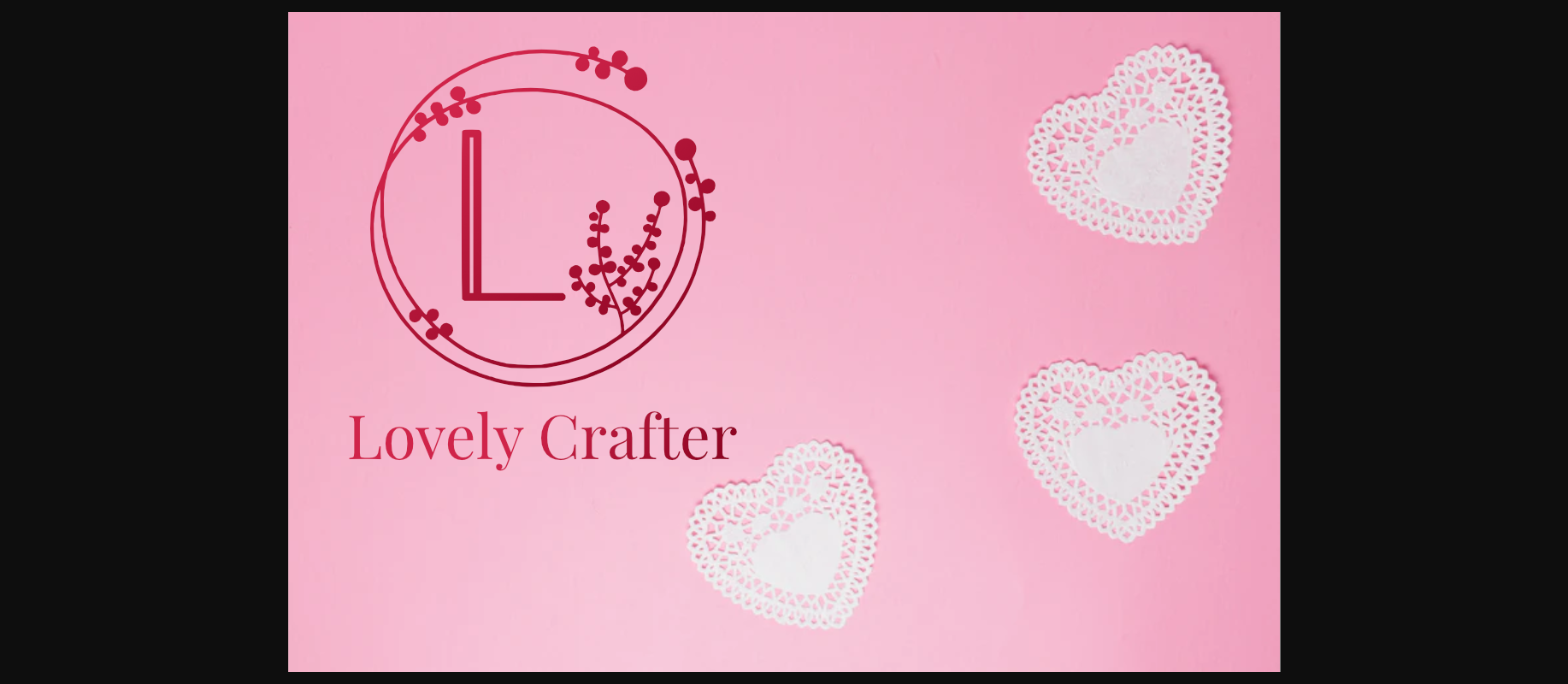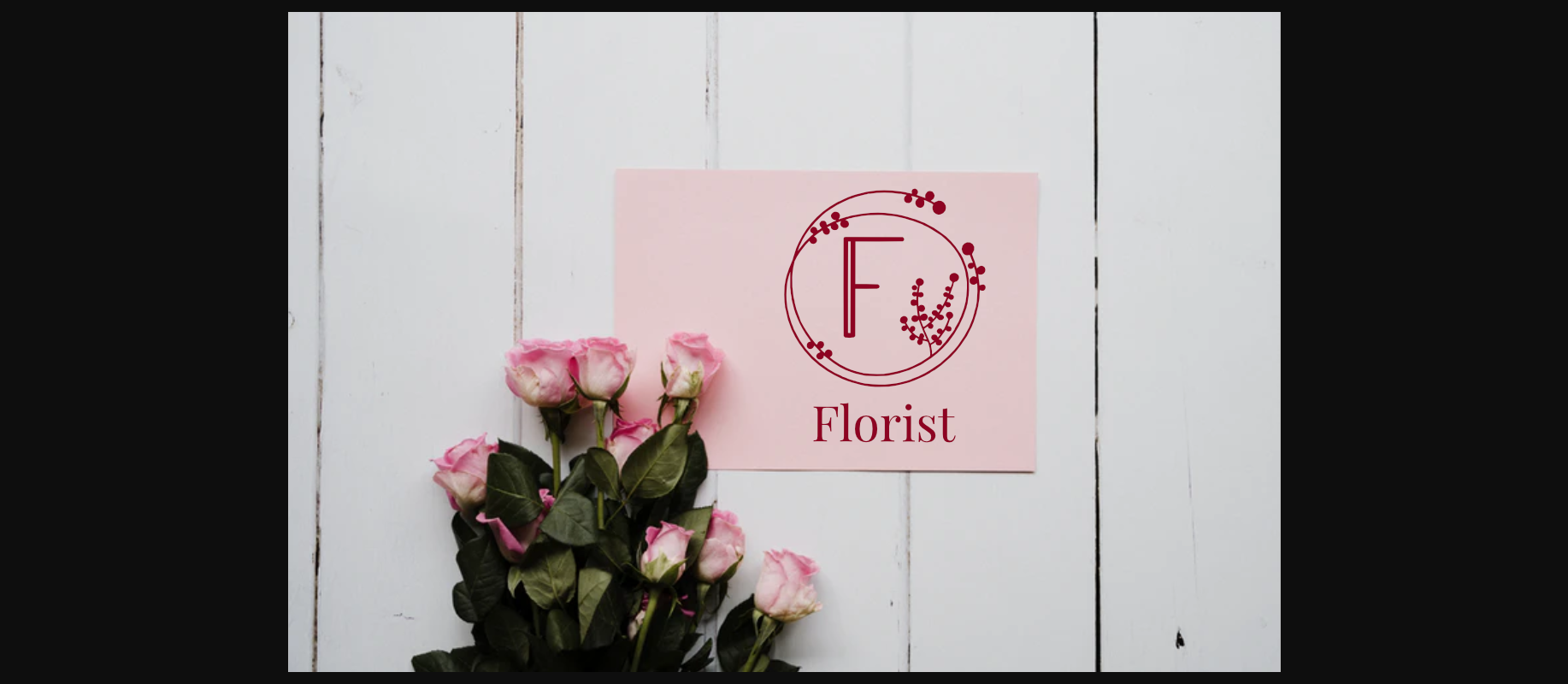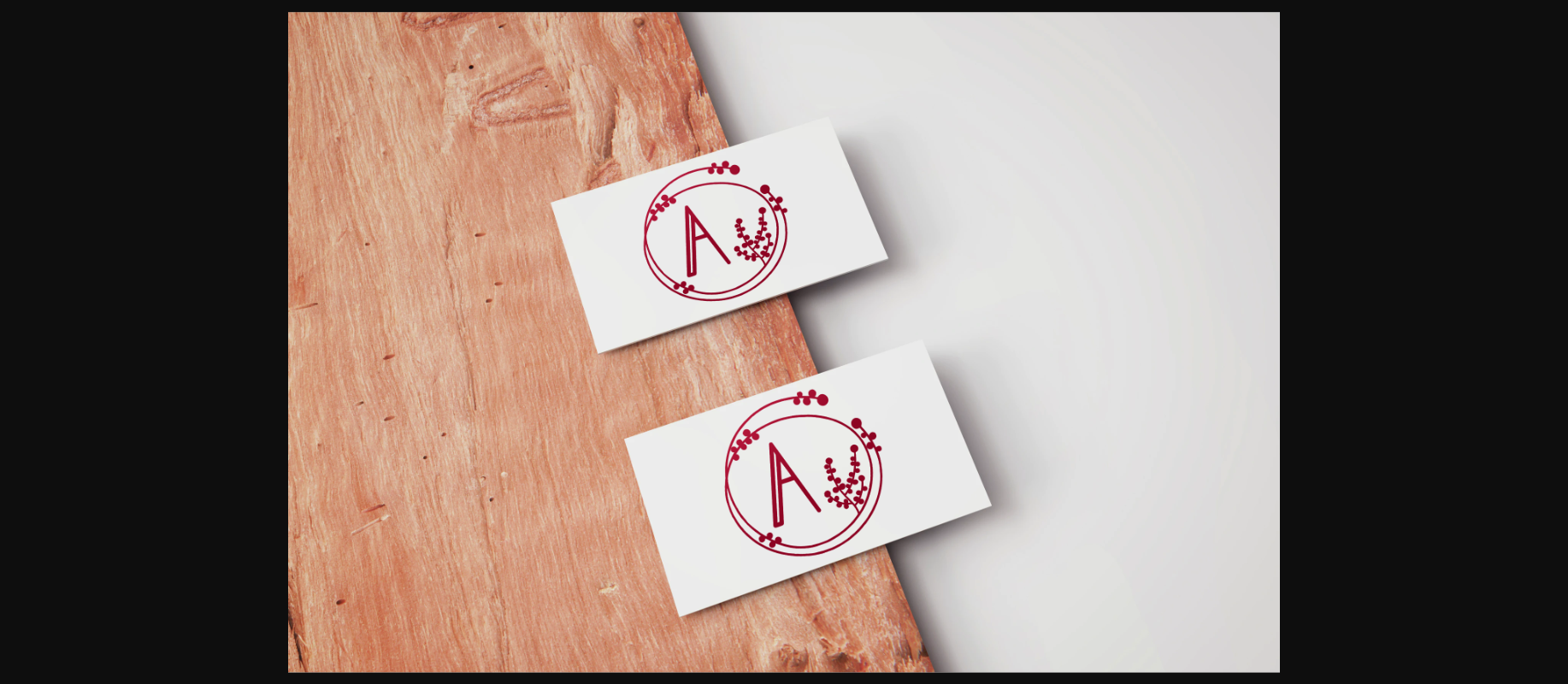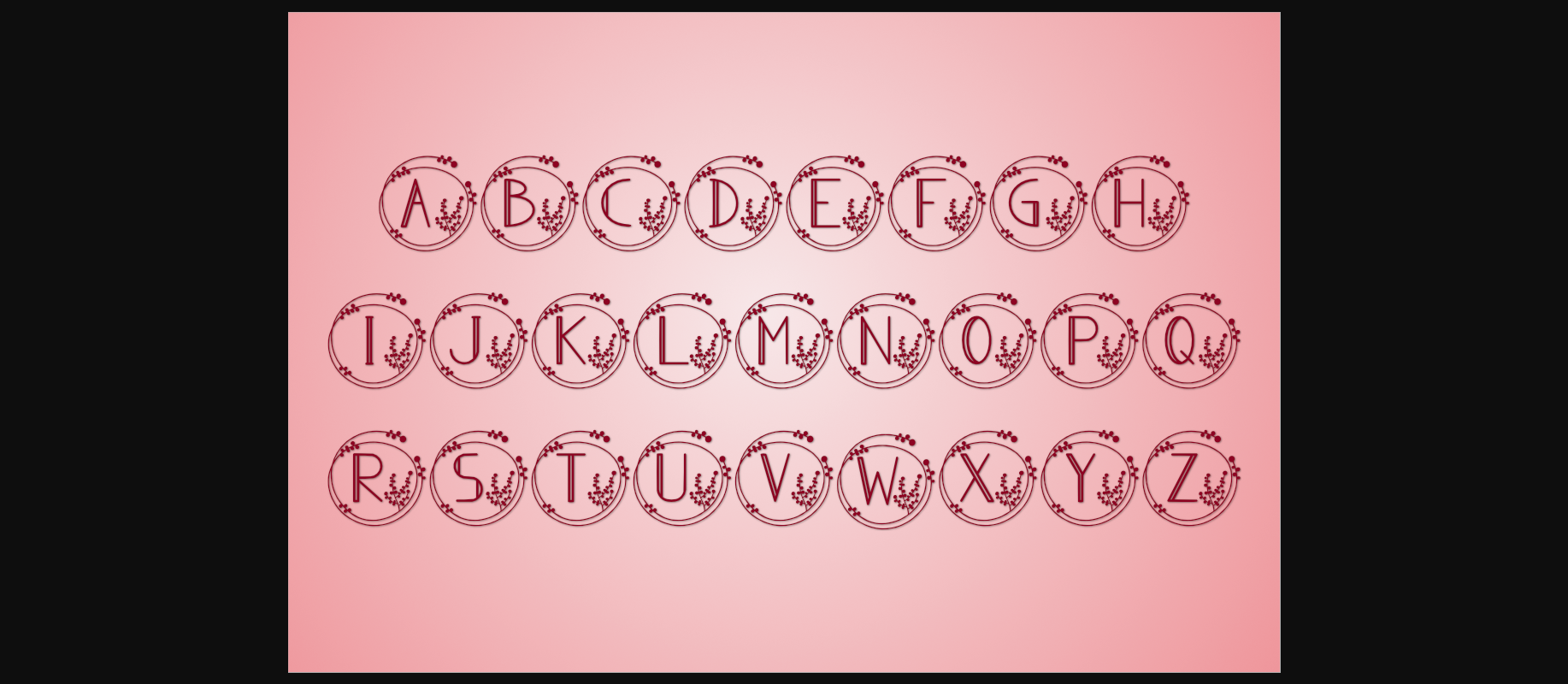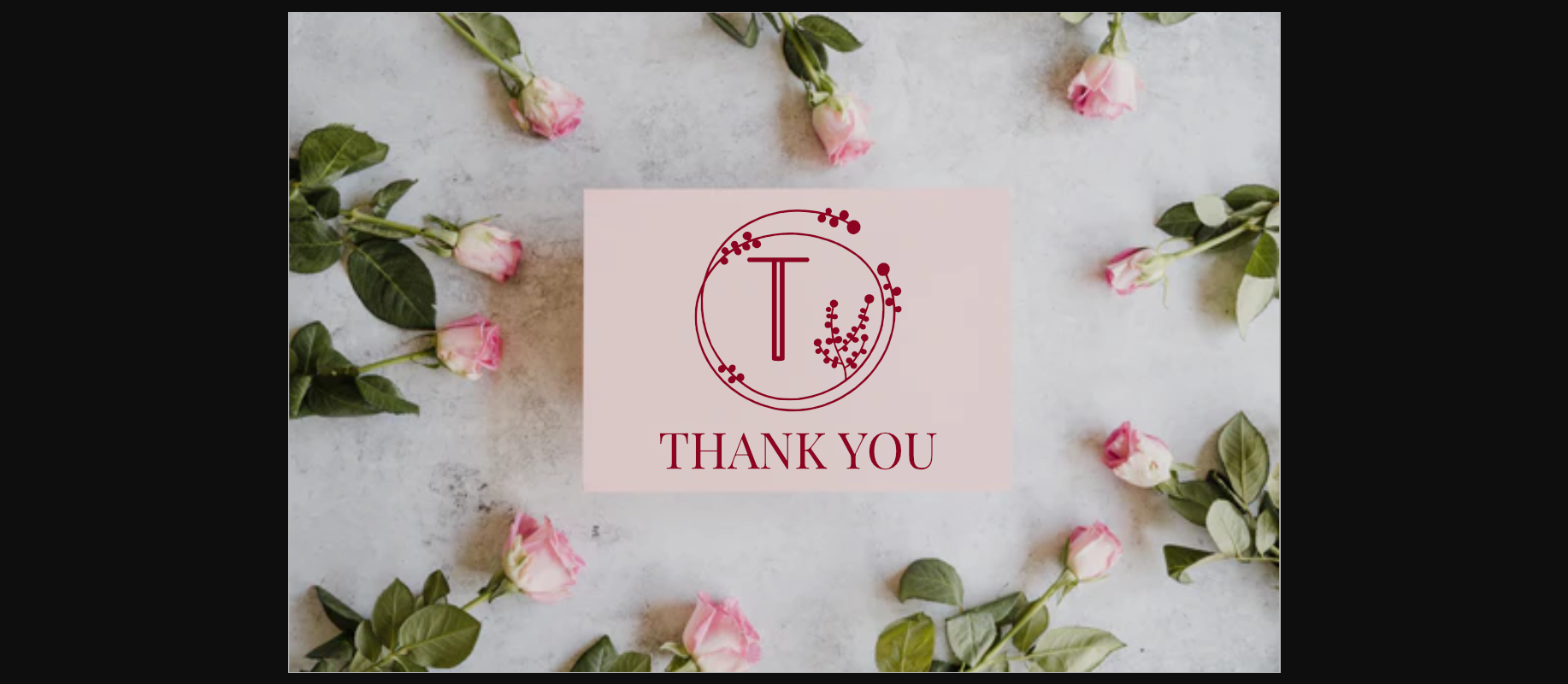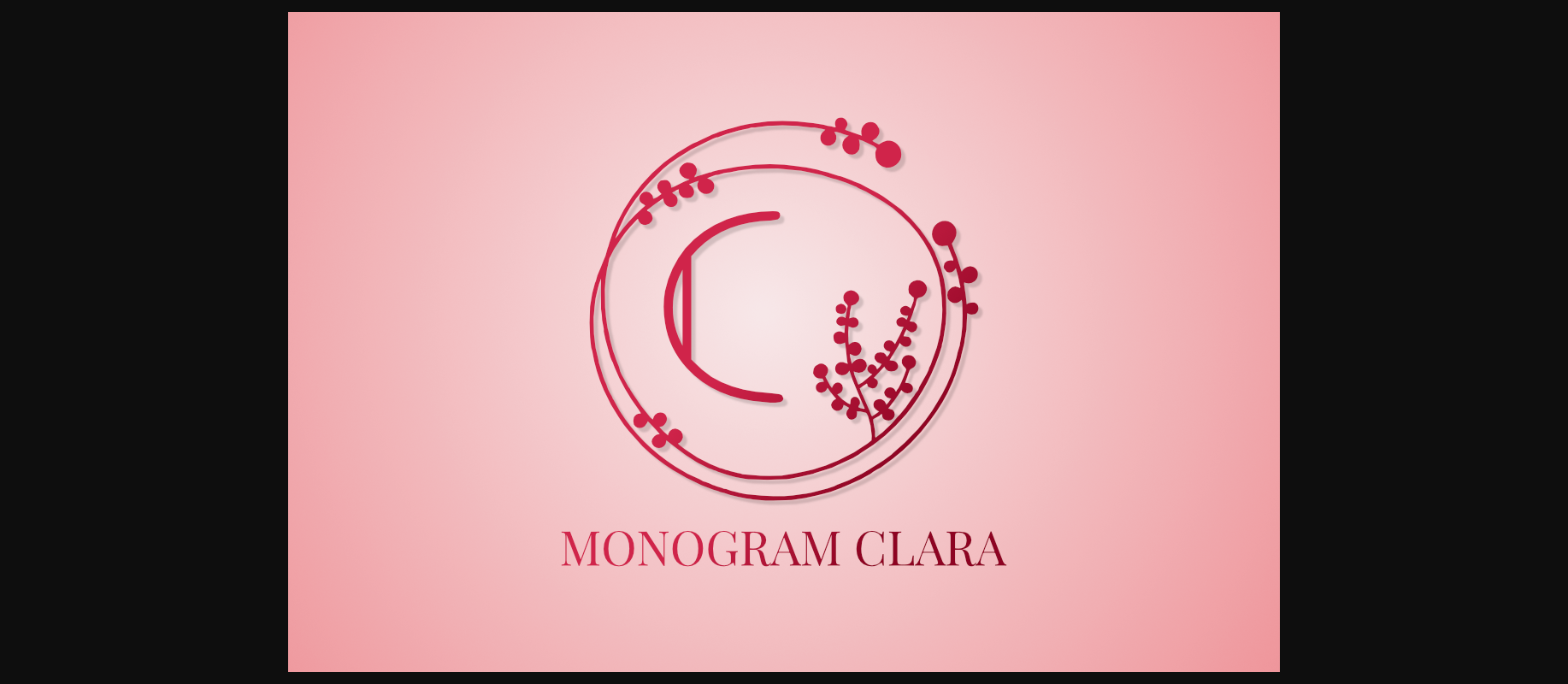
Monogram Clara is a dainty and unique decorative font. Add this romantic and lovely looking font to each of your love letters, wedding invitations or favorite design ideas, and you will be astounded by the outcome.